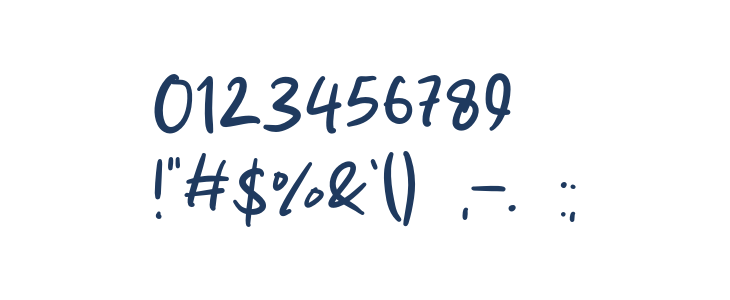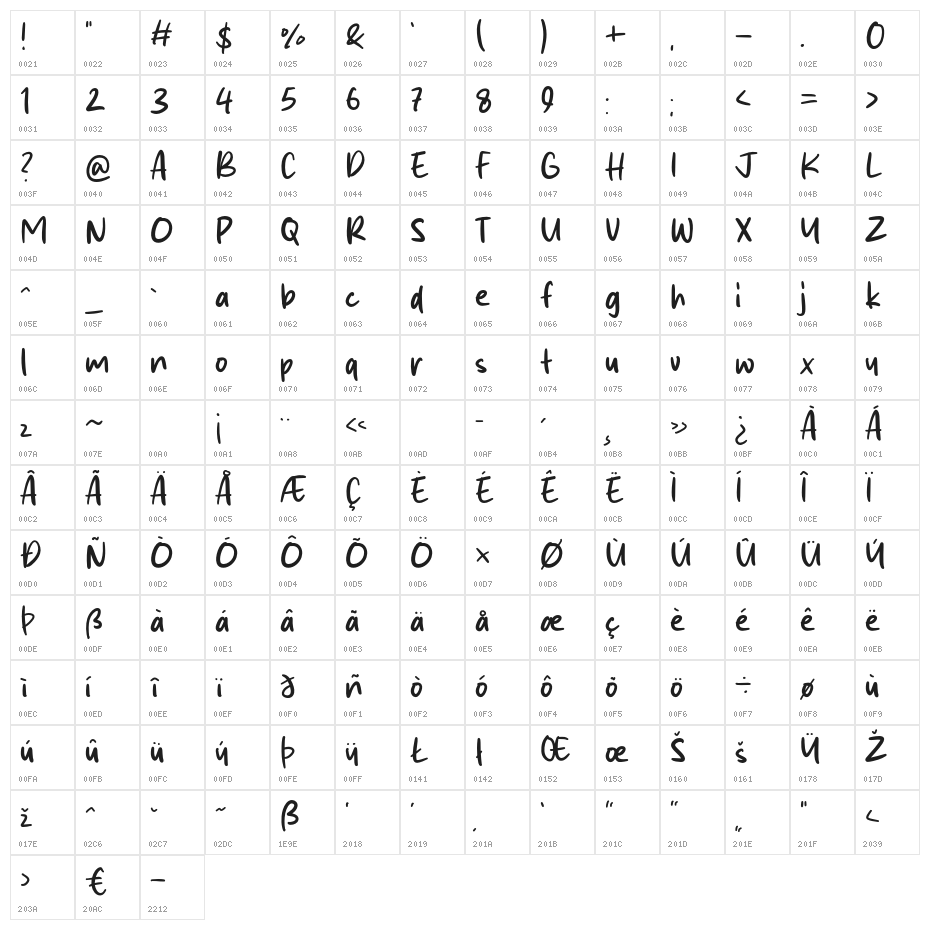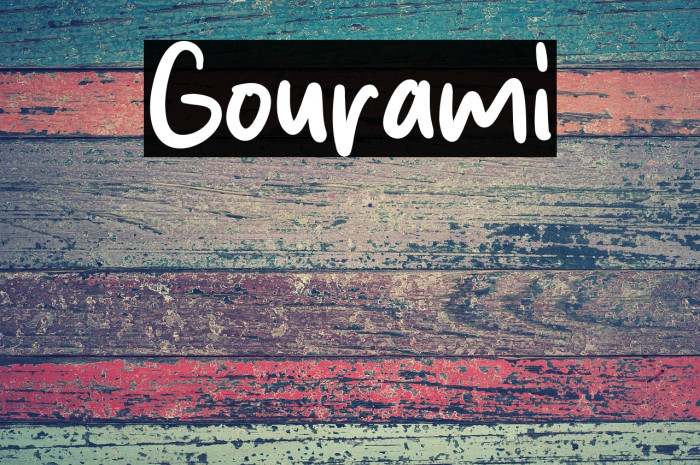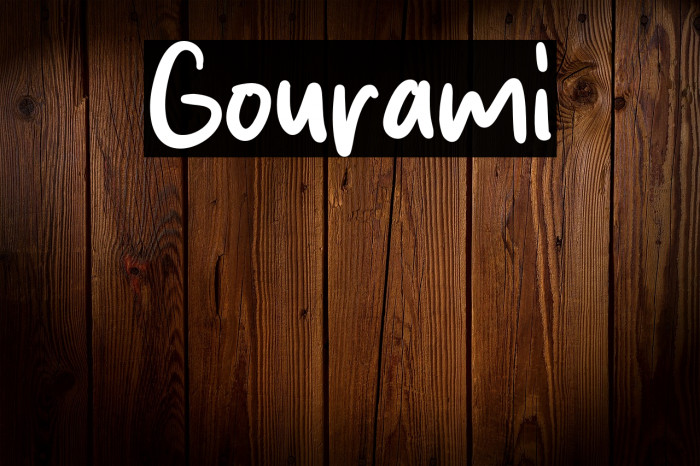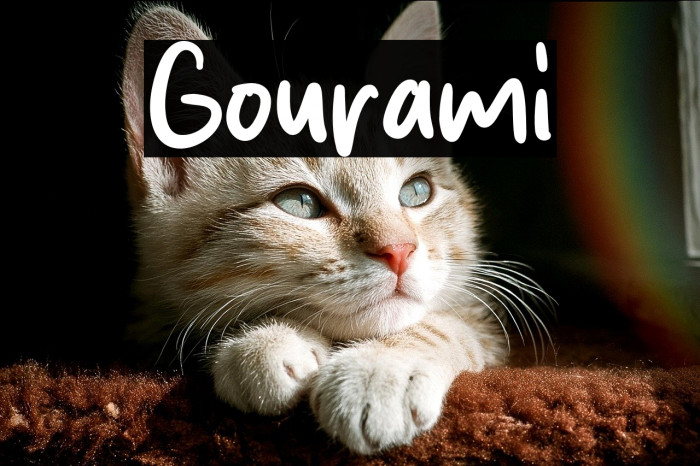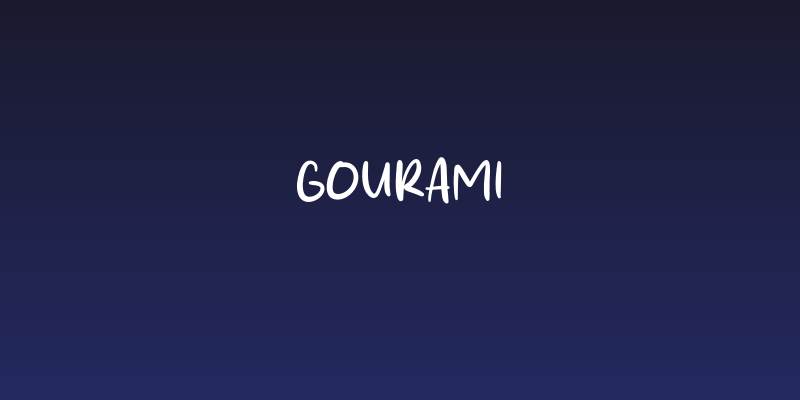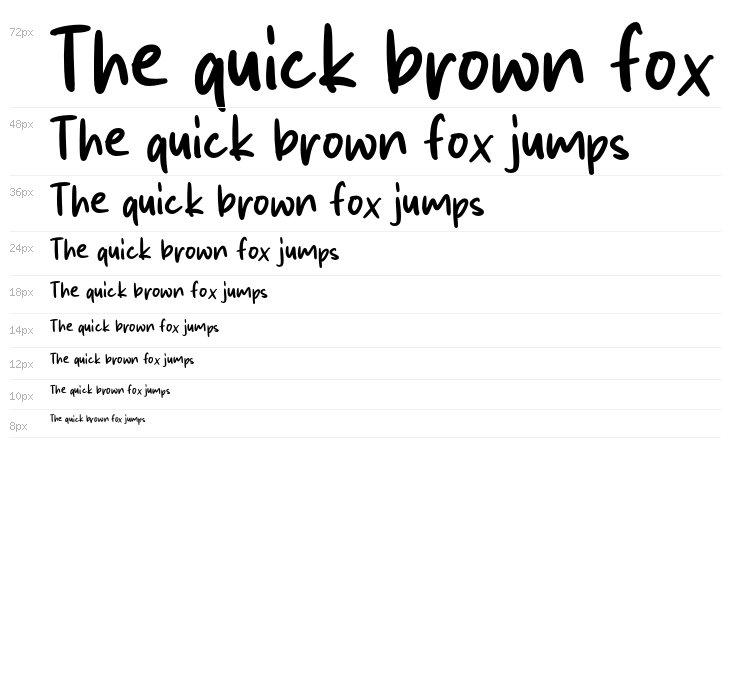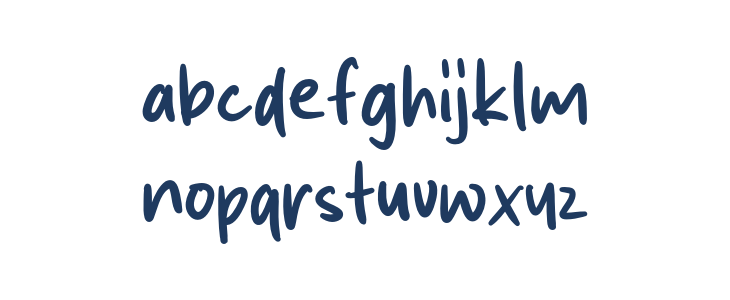
Gourami Font
Gourami Description
This font features a playful and casual handwritten style, characterized by its smooth, flowing curves and slightly irregular strokes. The letters have a natural, organic feel, reminiscent of a personal note or a casual invitation. The uppercase and lowercase letters maintain a consistent style, with a slight slant that adds to the informal appearance. The numbers and special characters are crafted to match the overall aesthetic, ensuring a cohesive look across all text. This font exudes a friendly and approachable vibe, making it suitable for projects that require a personal touch.
| Overall Style | Casual, Playful |
| Use Case | Greeting cards, Personal notes, Informal branding |
| Proposed Projects | Greeting cards, personal invitations, casual branding, social media graphics. |